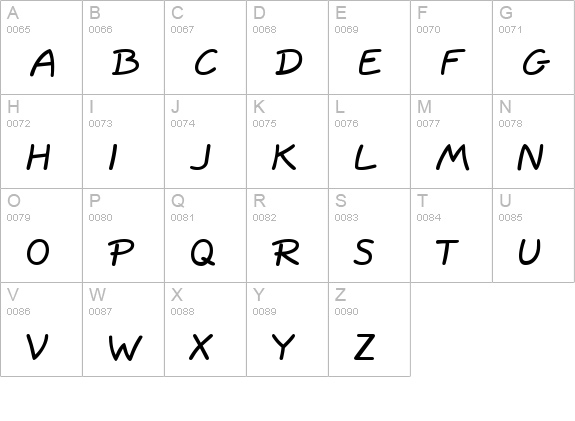
Short Hand Heavy Bold Font Details
Short Hand Heavy Bold is a heavy, high-impact variant in the Short typeface family \xE2\x80\x94 well suited to high-impact headlines, posters, and display advertising.
Introducing the Short Hand Heavy Bold font, a remarkable typeface designed for those seeking to make a bold statement. This font exudes confidence and strength with its thick, heavy strokes and commanding presence. Each character is meticulously crafted, allowing for clear legibility and readability even at smaller sizes. With its unique blend of elegance and power, Short Hand Heavy Bold is perfect for a wide range of design projects. Whether you're creating eye-catching headlines, designing impactful logos, or adding emphasis to important text, this font will effortlessly elevate your work to the next level. But what truly sets Short Hand Heavy Bold apart is its versatility. It seamlessly integrates into a variety of design styles, making it suitable for both modern and vintage-inspired projects. Its timeless appeal ensures that it will remain a staple in your font collection for years to come. And the best part? Short Hand Heavy Bold is freely available for download at FontsMarket.com. You can easily access this exceptional font at no cost, allowing you to add a touch of sophistication and strength to your designs without breaking the bank. So why wait? Discover the power of Short Hand Heavy Bold today and unlock a world of creative possibilities.